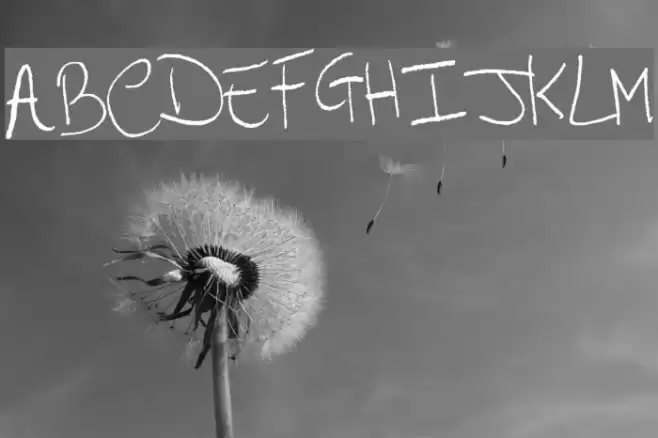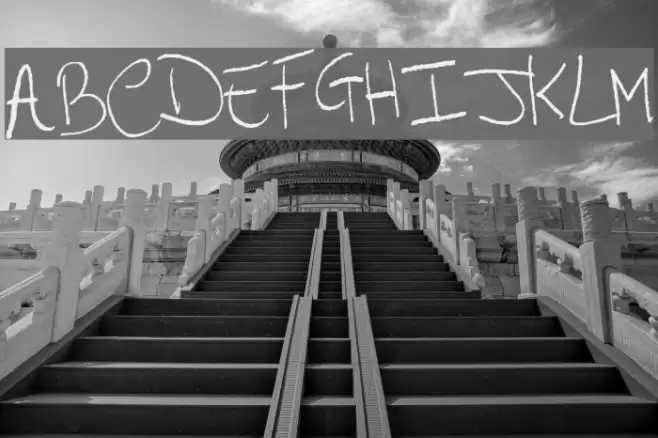
Arcangelo's Words Font
Arcangelo's Words Description
This font exhibits a casual, handwritten style with a playful and artistic flair. The uppercase letters are bold and slightly irregular, giving them a dynamic and energetic appearance. The lowercase letters maintain a consistent flow, with some characters featuring loops and swirls that add to the font's charm. Numbers are bold and slightly exaggerated, matching the overall whimsical feel. Special characters are creatively designed, maintaining the font's unique style. The strokes are uneven, contributing to a textured, organic look, while the overall spacing between characters is normal, allowing for readability without losing its artistic touch.
A playful, handwritten font with bold, dynamic strokes and artistic flair from Uncategorized fonts.
- Proposed Projects: Ideal for creative projects such as greeting cards, invitations, posters, and artistic branding.
- Use Case: Logos, Headlines, Artistic projects